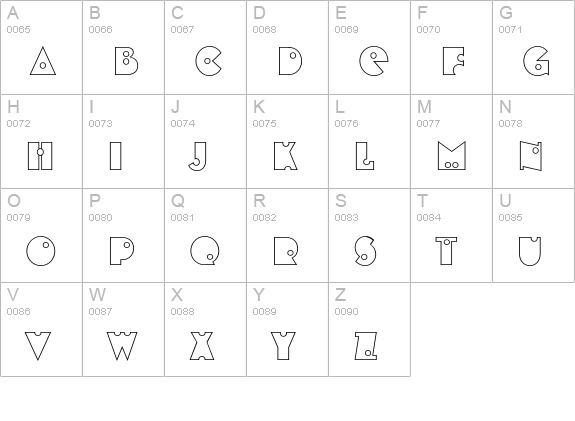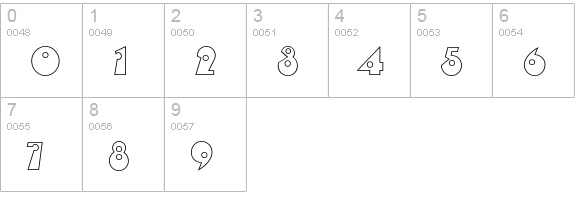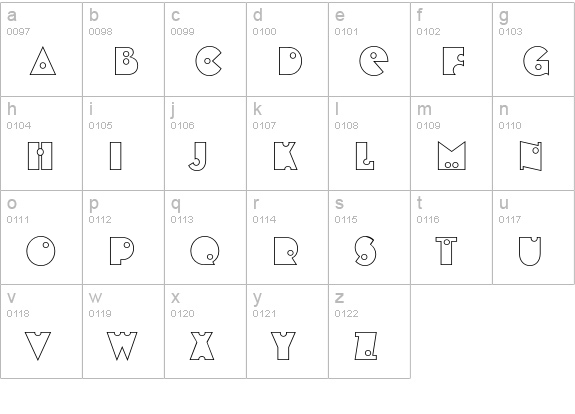
Shotgun Blanks Font Details
Shotgun Blanks font is a bold and powerful typeface that captures the essence of strength and impact. Its thick and rugged letterforms evoke a sense of raw energy and intensity, making it perfect for designs that demand attention. With its sharp edges and strong presence, Shotgun Blanks font commands the viewer's gaze and leaves a lasting impression. Whether used in headlines, logos, posters, or any other design project, this font is sure to make a bold statement. What sets Shotgun Blanks font apart is not just its striking aesthetics, but also its versatility. It can be used in various contexts, from vintage-inspired designs to modern and edgy layouts. Its bold and robust character allows it to adapt to different design styles and themes. The best part? Shotgun Blanks font is available for free download at FontsMarket.com. This means that you can easily incorporate this impactful font into your projects without breaking the bank. Simply head over to FontsMarket.com and start using this font to elevate your designs to a whole new level. So if you're in need of a font that exudes power and grabs attention, look no further than Shotgun Blanks font. Its strong and bold presence, combined with its versatility and free availability, makes it the ideal choice for designers who want to make a statement. Download it today and unleash the power of Shotgun Blanks font in your designs.